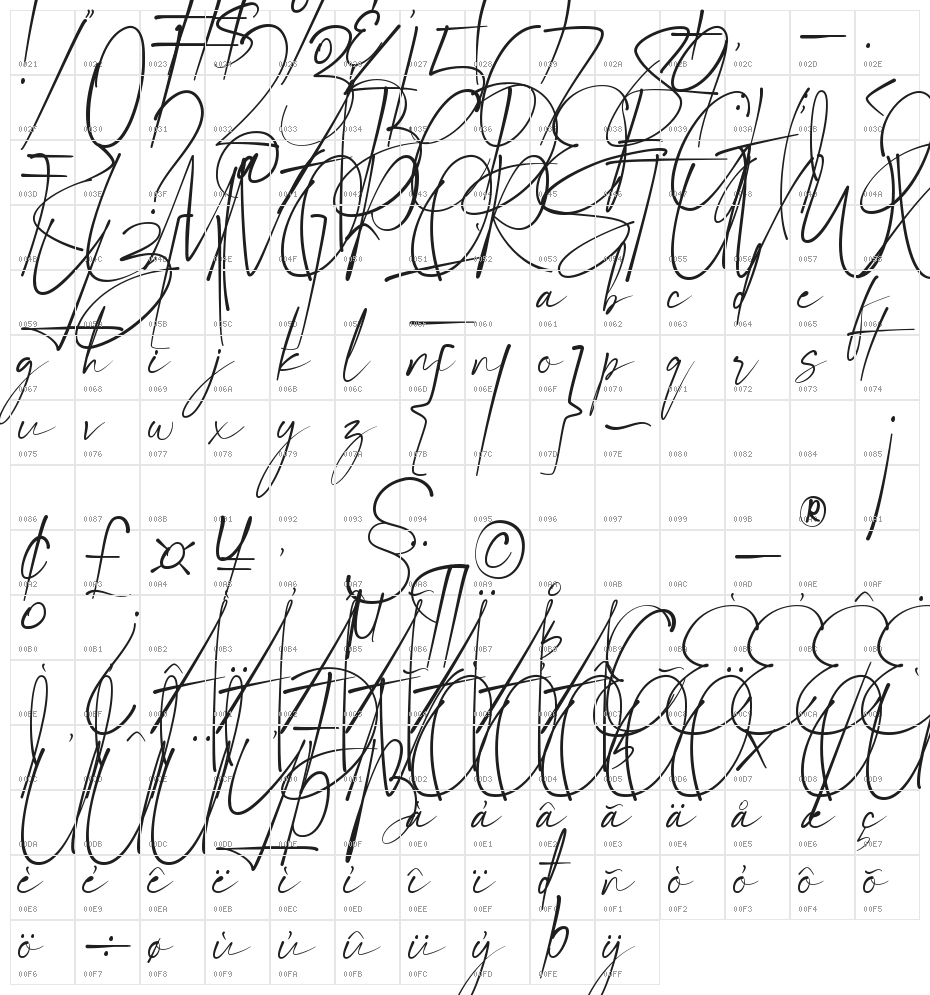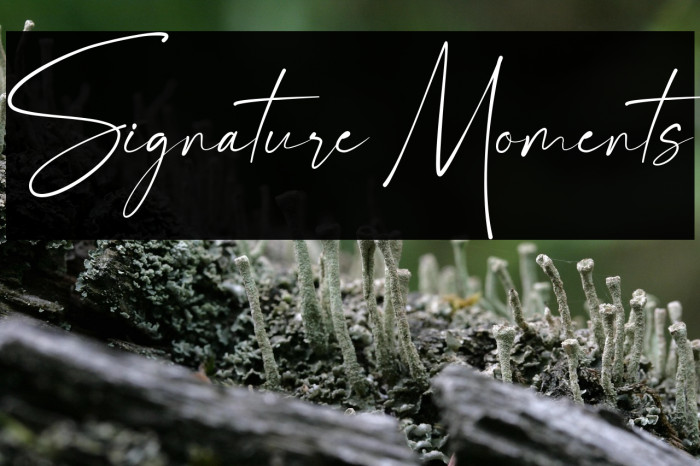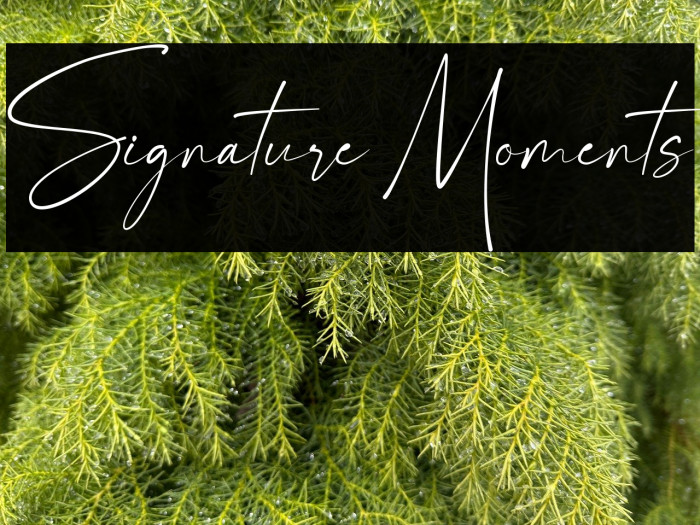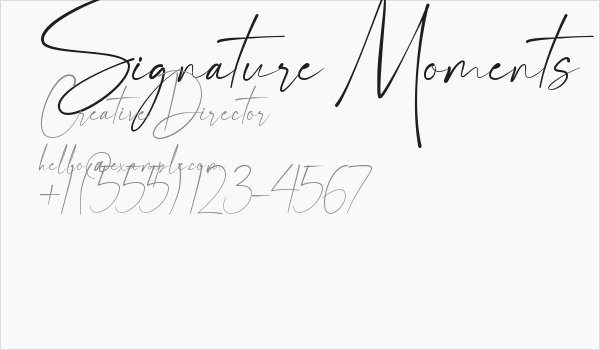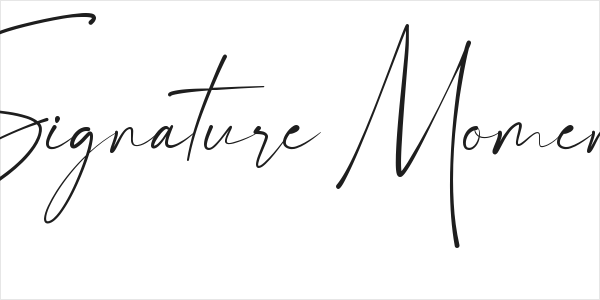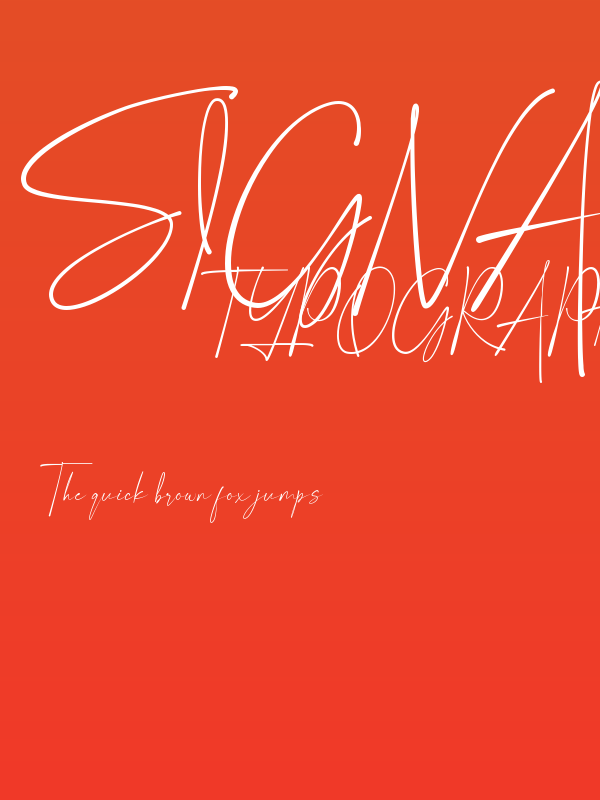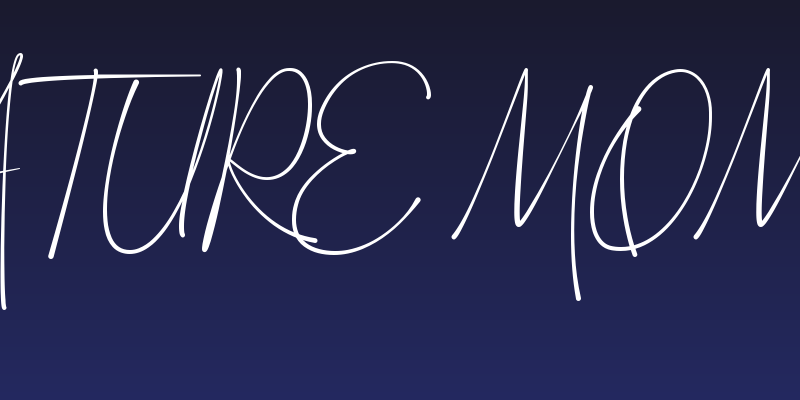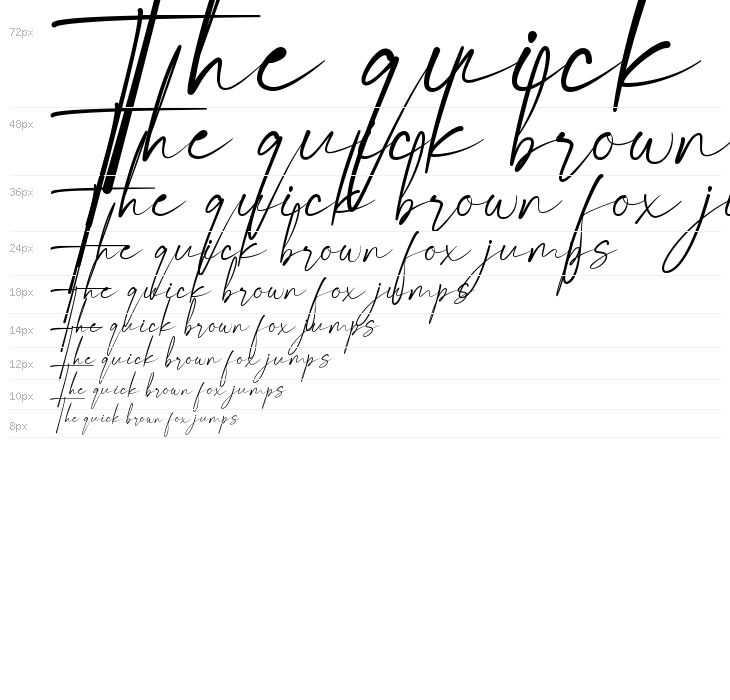
Signature Moments Font
Signature Moments Description
This font exudes a sense of elegance and sophistication with its flowing, cursive style. The letters are intricately designed with a hand-drawn appearance, featuring smooth, continuous strokes that mimic the fluidity of handwriting. The uppercase letters are tall and slender, while the lowercase letters maintain a consistent flow, enhancing the overall graceful aesthetic. Numbers and special characters are crafted with the same attention to detail, ensuring a cohesive look throughout. The font's delicate lines and artistic flair make it ideal for projects that require a personal touch.
Overall StyleElegant, Artistic
Use CaseLogos, Invitations, Personal Branding
Proposed ProjectsIdeal for wedding invitations, personal branding, greeting cards, and elegant packaging designs.